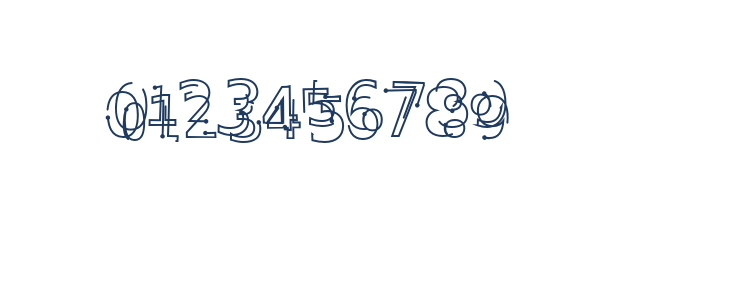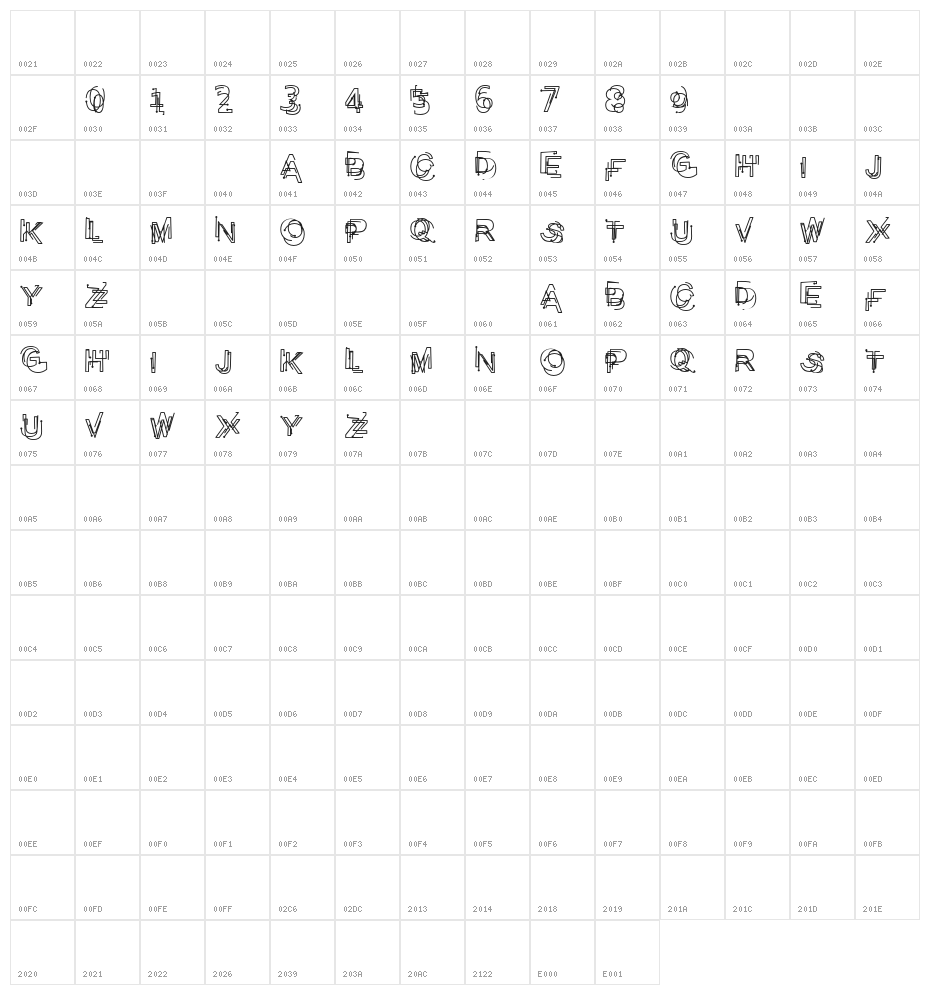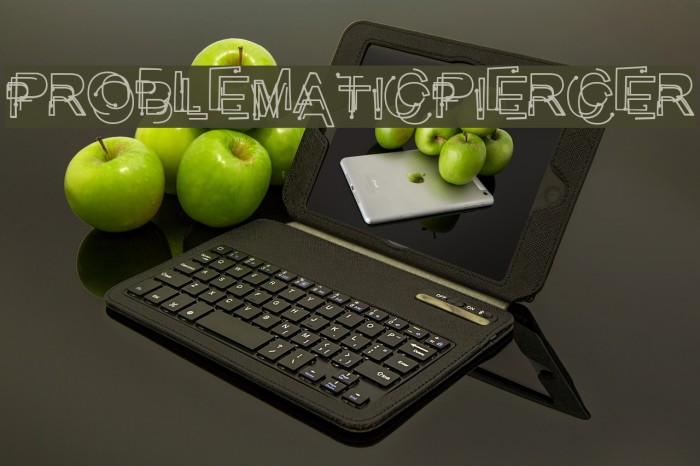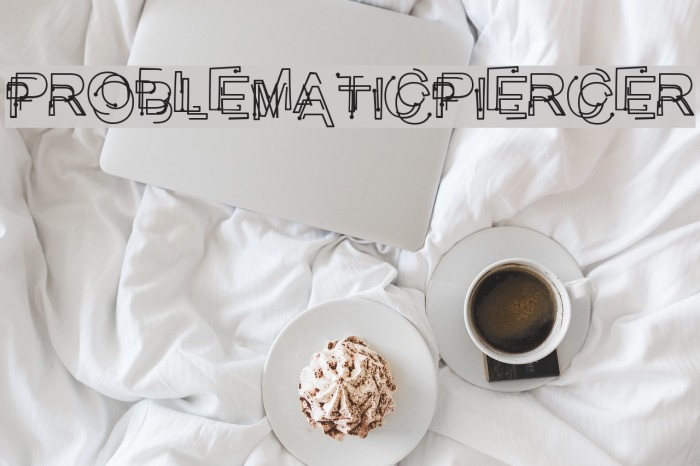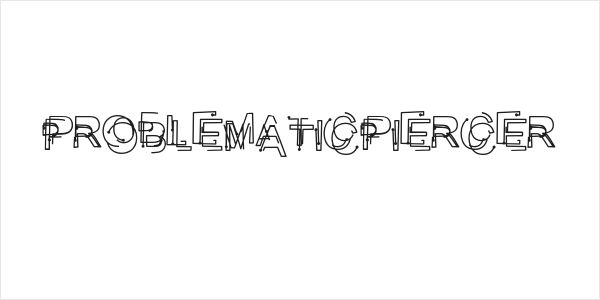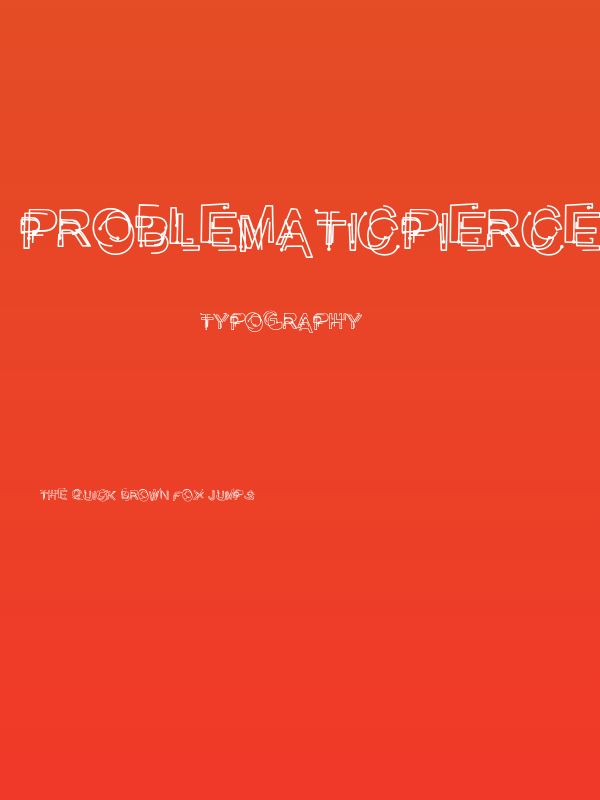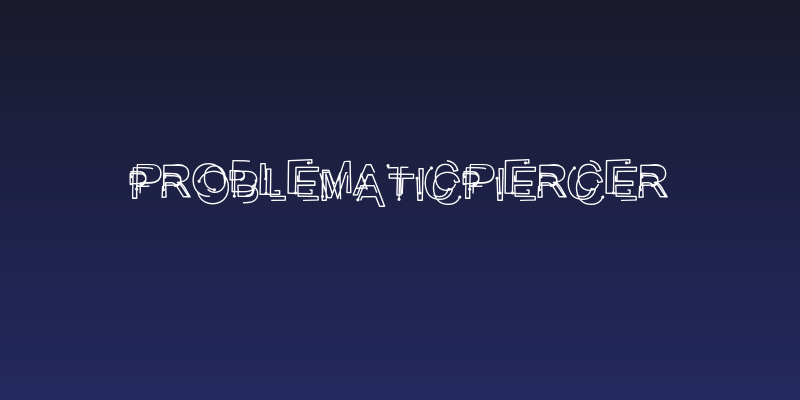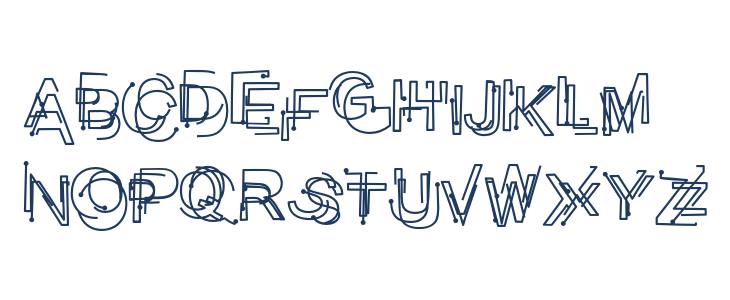
ProblematicPiercer Font
ProblematicPiercer Description
This font features a unique and artistic design with overlapping outlines that create a sense of depth and complexity. The letters are constructed with a combination of straight lines and curves, giving them a modern and abstract appearance. The overlapping elements add a dynamic and layered effect, making it visually intriguing and suitable for creative projects. The font maintains a consistent structure across uppercase, lowercase, and numeric characters, ensuring readability despite its decorative style. The special characters are designed with the same overlapping technique, adding to the font's cohesive look.
Proposed ProjectsIdeal for artistic posters, album covers, branding projects, and any design requiring a bold, creative touch.